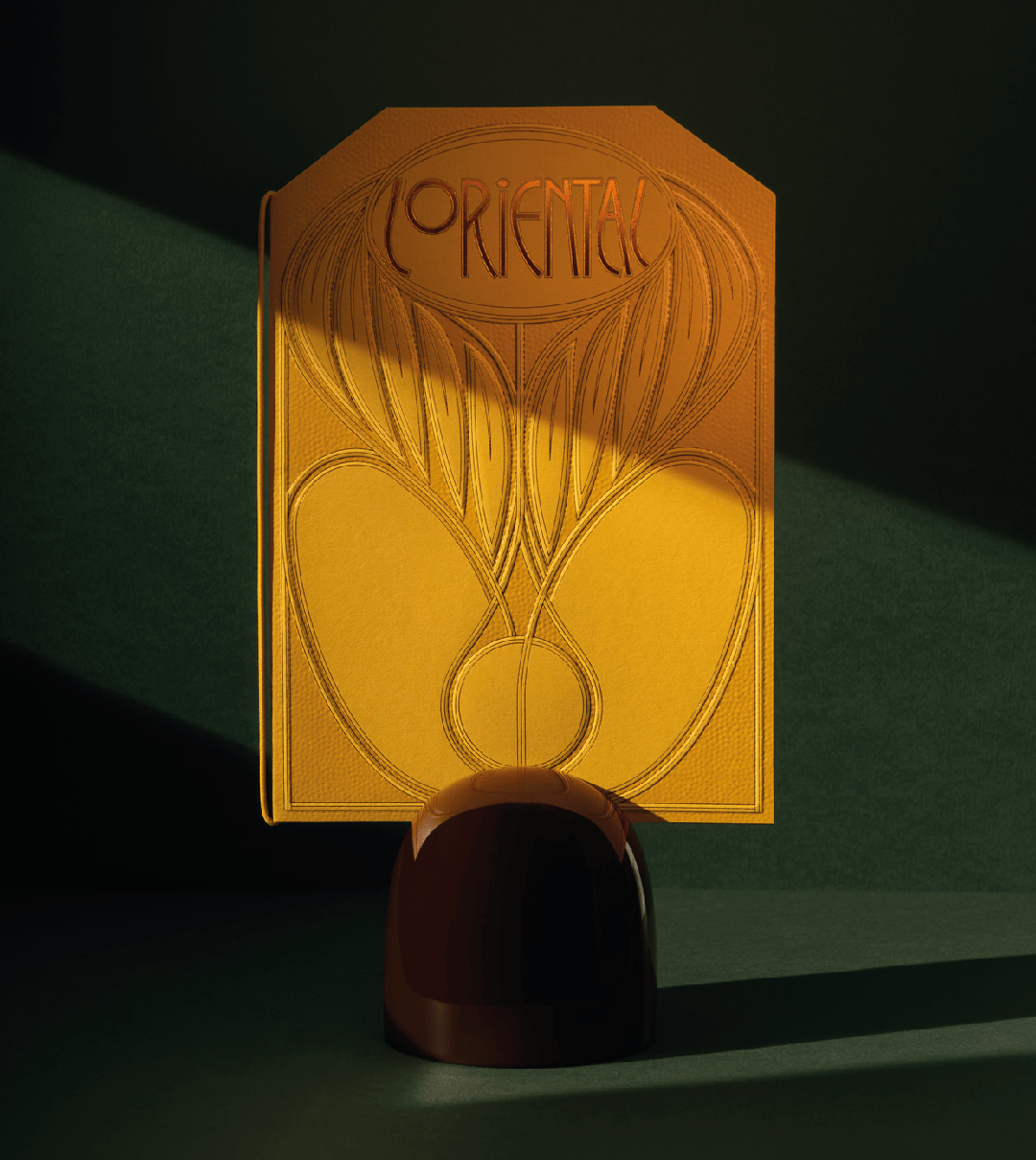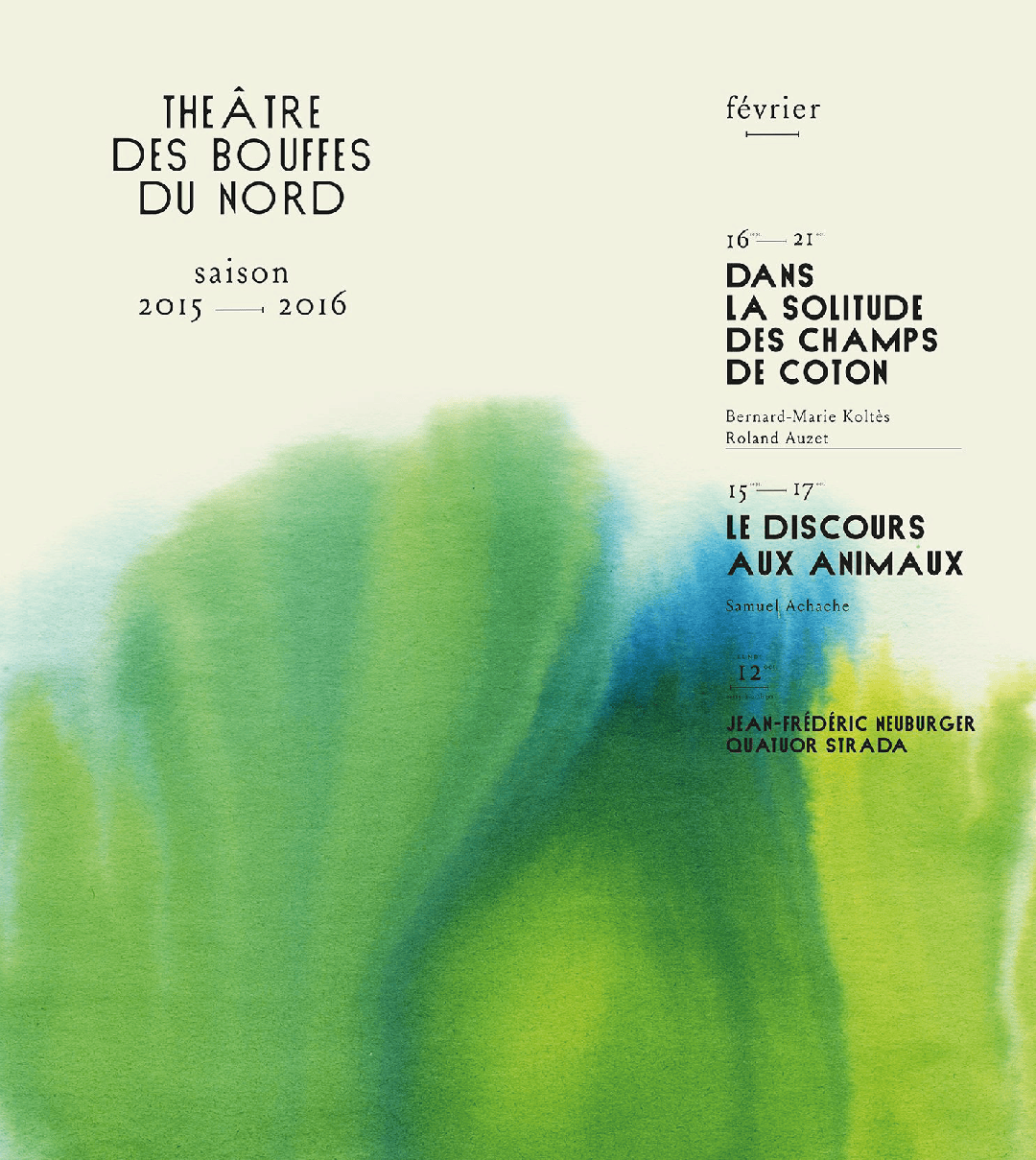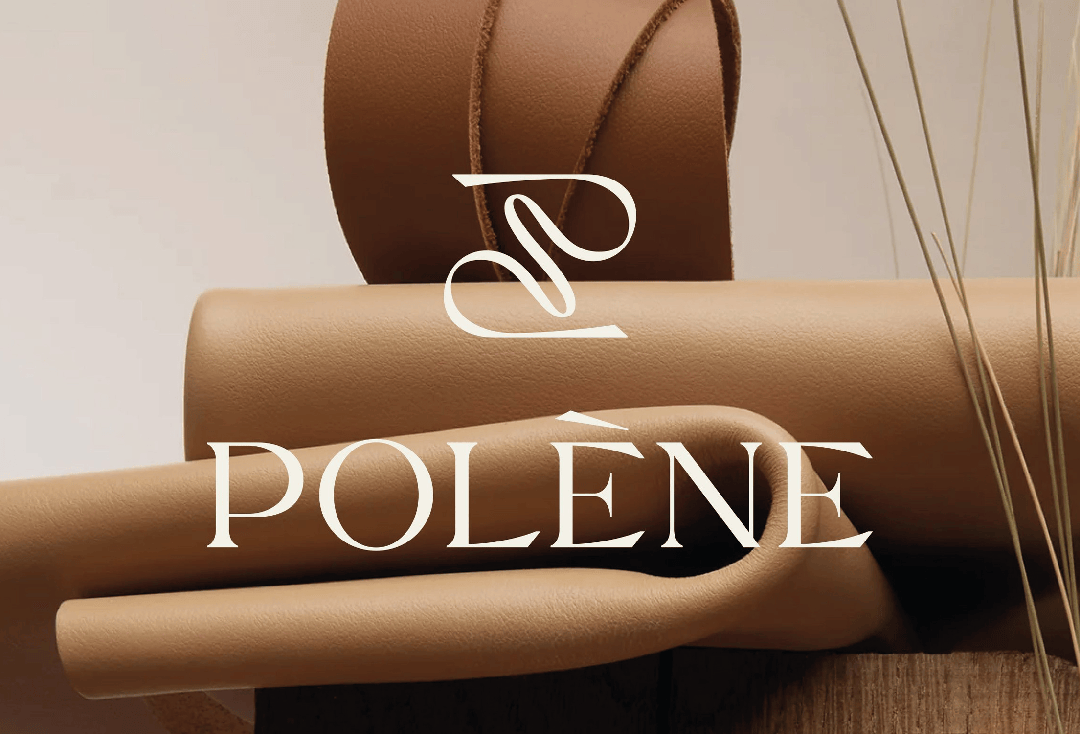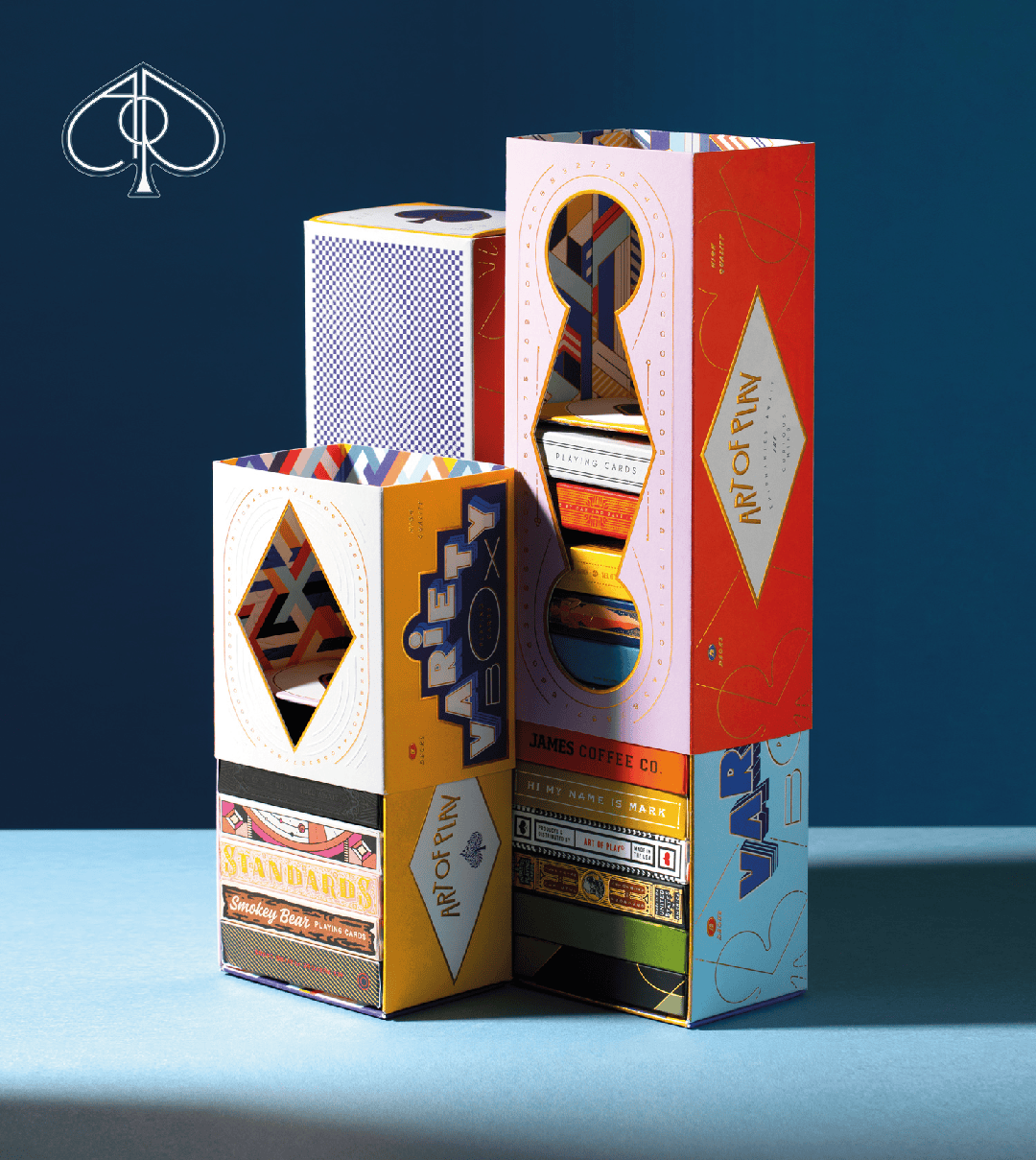
The close-knit duo, Violaine & Jérémy opened their studio in 2012 mainly working in illustration and editorial design. A close relationship with handmade work and printed matter forms the basis of their aesthetic approach, which they have been developing ever since.
In 2015, their first collaboration with Parisian theater, Théâtre des Bouffes du Nord, was an opportunity to break new creative ground. Their search for sophisticated design led them to develop their first glyphset. This is how VJ TYPE's typographic journey began.
Founded by creative partners Orsoni and Schneider, the design studio is known for its sophisticated and inviting aesthetic. By cultivating a sensitive, artistic, and detail-oriented approach, the studio aims to deliver a work of excellence made to last.
Over the years, we built a bright constellation of multidisciplinary talents that surrounds us: designers, illustrators, typographers, animators, painters, creative coders, photographers, scenographers, printers…
VJ-Type is an independent type foundry based in Paris, born from Violaine & Jérémy’s creative studio. The foundry focuses on the design of strong, peculiar typefaces and always strives for elegant, perfectly balanced work.